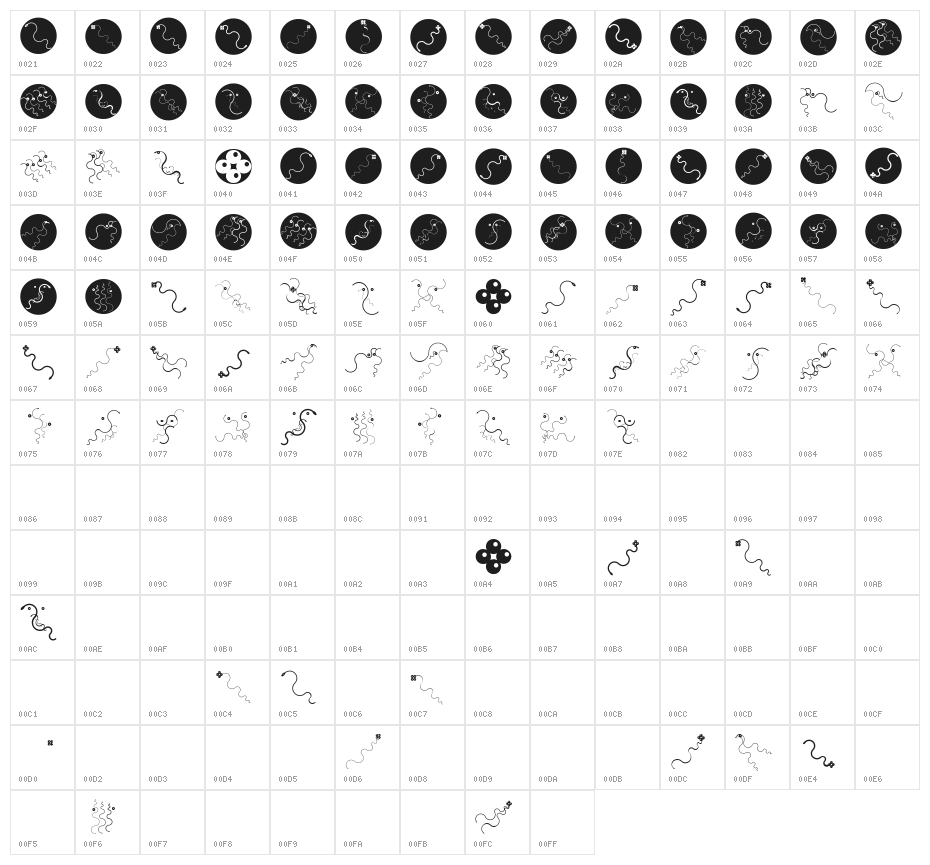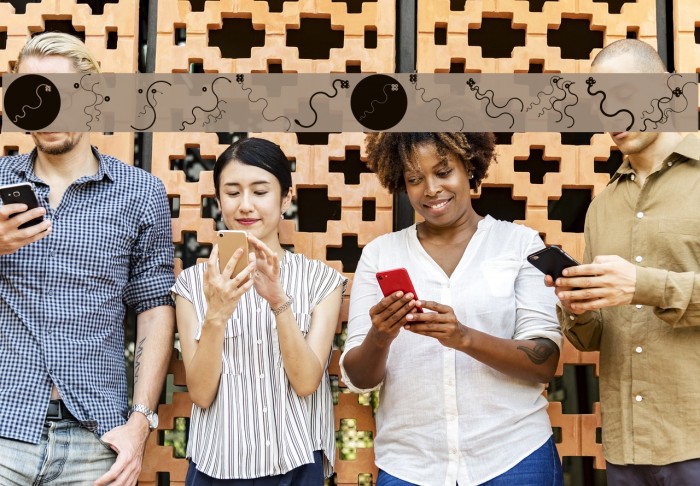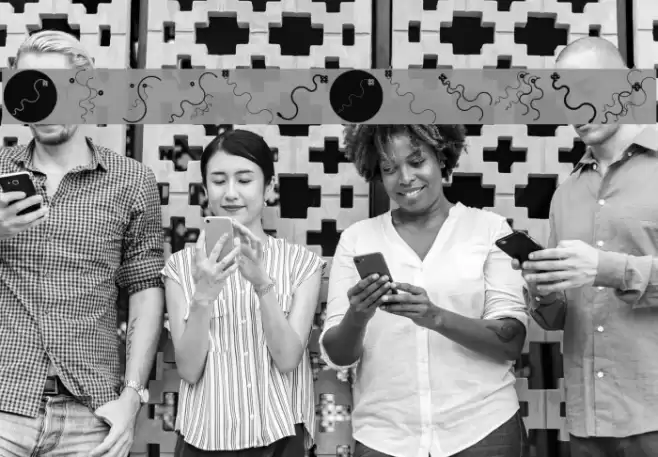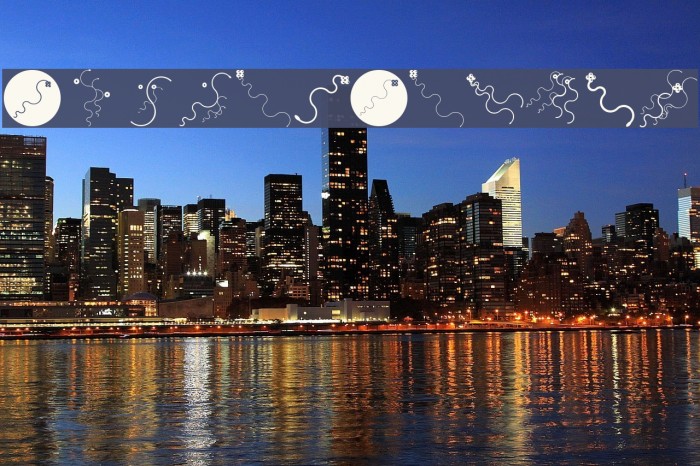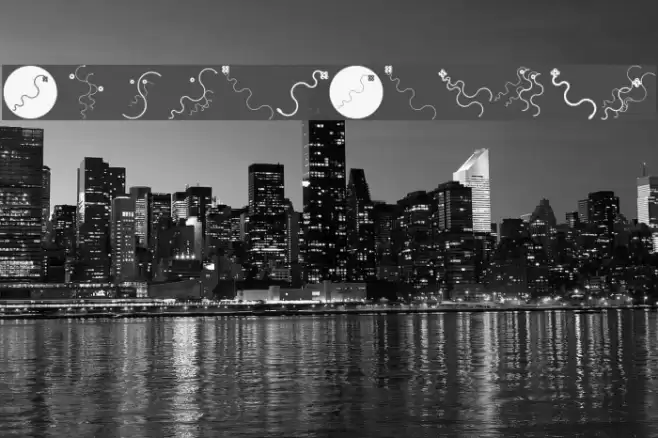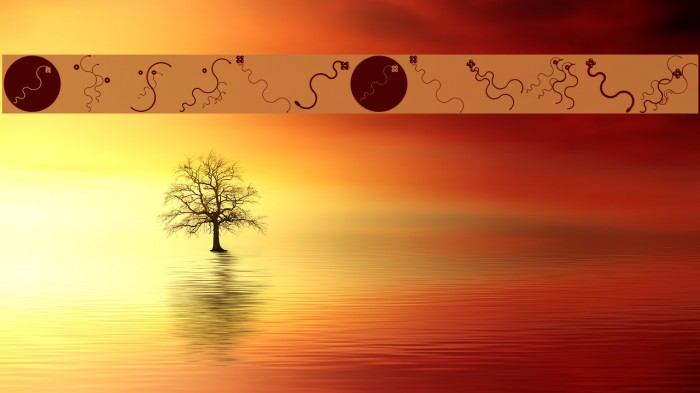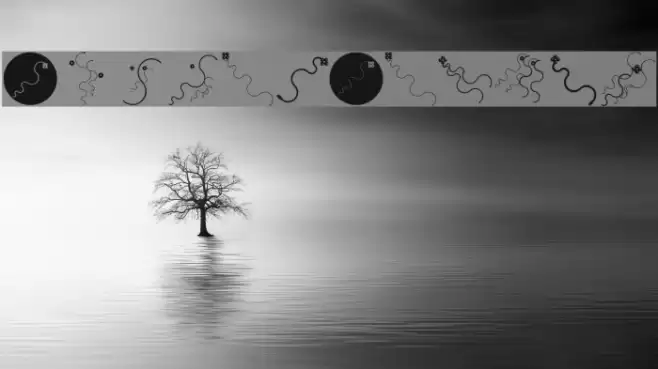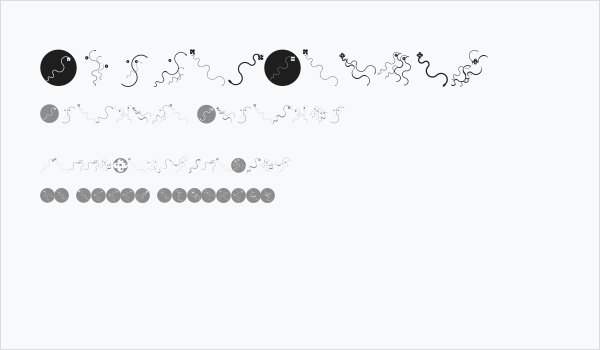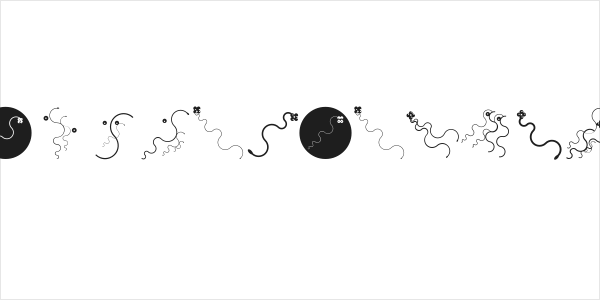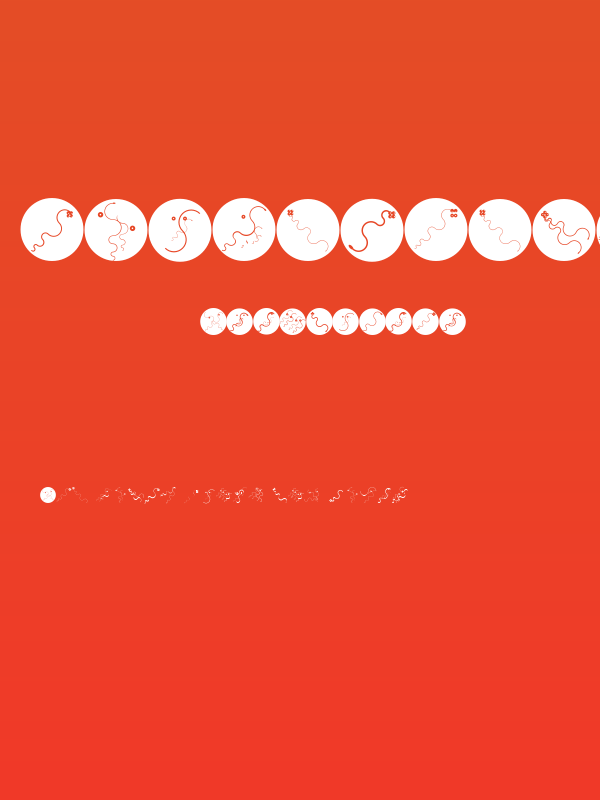
CurvedBeings Font
CurvedBeings Description
A highly decorative and abstract font composed of wavy, organic lines and dots forming each character, often enclosed in solid black circles. The glyphs have a playful, almost creature-like appearance, with varying line thickness and whimsical curves.
| Overall Style | Decorative, Abstract, Playful |
| Use Case | Logos, Posters, Titles, Artistic Projects |
| Proposed Projects | ChildrenΓ’β¬β’s books, creative branding, art posters, experimental design, album covers. |